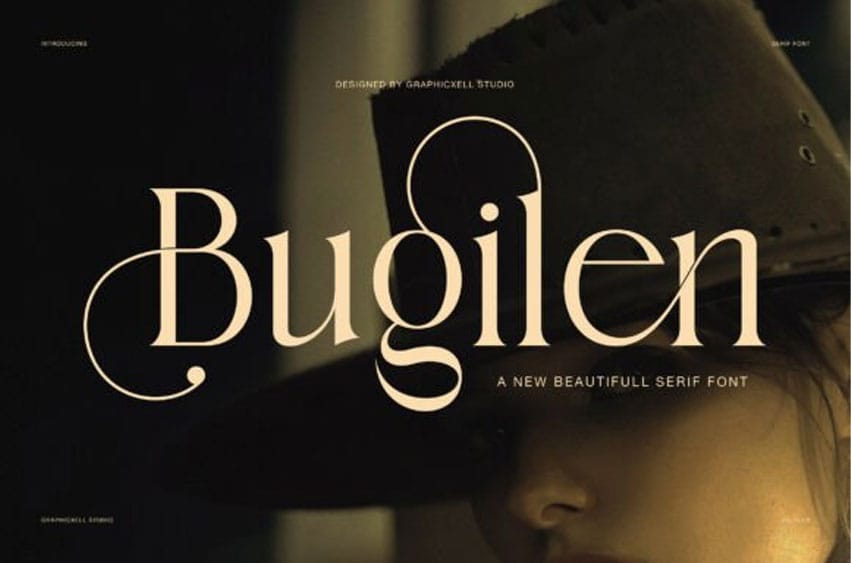
Bugilen Font Exude timeless grace with Bugilen, a high-fashion serif font designed to bring a touch of poetic elegance to your typography. Perfectly optimized for high-impact logos, hero graphics, and editorial headers.
Bugilen is the definitive choice for luxury branding, editorial magazine headers, high-end cosmetic packaging, and cinematic title design. Whether you’re designing for a boutique fashion house or an upscale wedding invitation, Bugilen delivers a sophisticated, artisanal charm that is truly unforgettable.